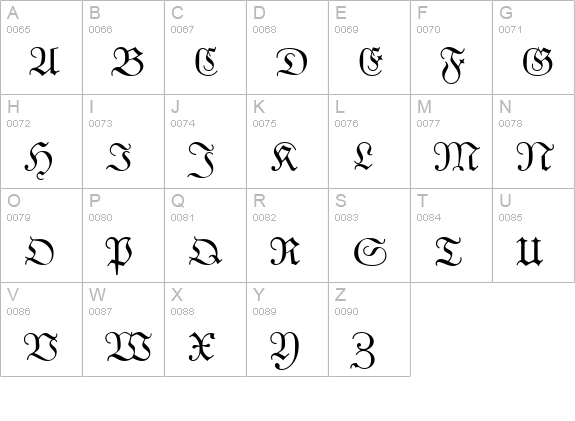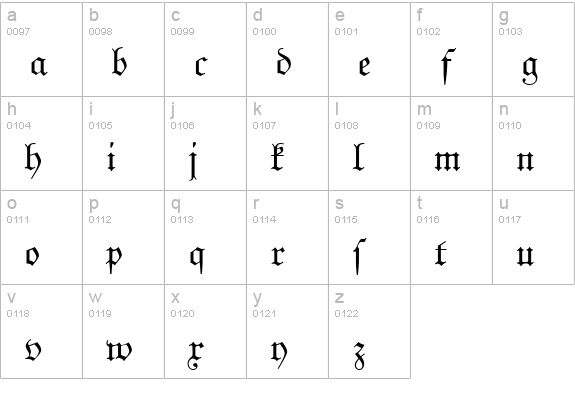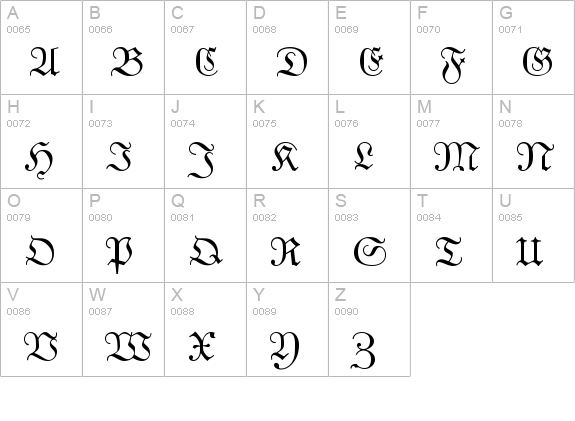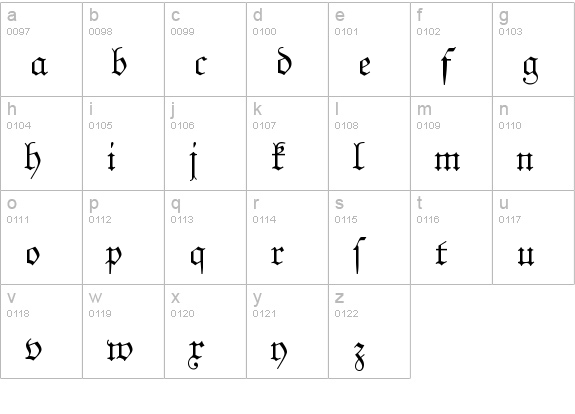
J790-Blackletter-Regular Font Details
J790-Blackletter-Regular is the standard, neutral variant in the J790 typeface family \xE2\x80\x94 well suited to general body text, paragraphs, and standard typographic work.
J790-Blackletter-Regular is a striking and elegant font that exudes a sense of classic sophistication. This blackletter typeface features intricate details and sharp edges, making it perfect for projects that require a touch of old-world charm and mystique. The angular and ornate letterforms of J790-Blackletter-Regular give off a sense of historical significance and timeless appeal. This font is not only visually captivating but also highly versatile, suitable for a wide range of design projects including logos, posters, invitations, and more. Its bold and distinctive appearance is sure to make a bold statement and leave a lasting impression on your audience. The best part? J790-Blackletter-Regular is available for free download at FontsMarket.com. Now you can enhance your designs with this stunning font without any cost. Don't miss out on the opportunity to add a touch of sophistication to your projects with J790-Blackletter-Regular. Download it today and start creating captivating designs that stand out from the crowd.